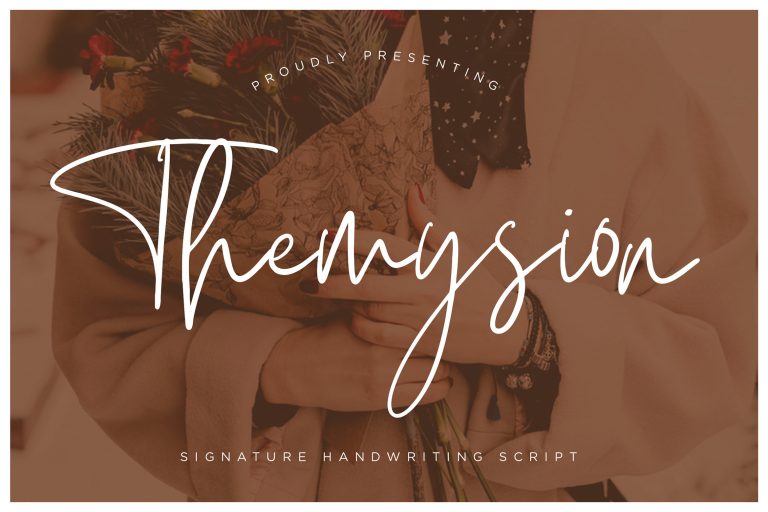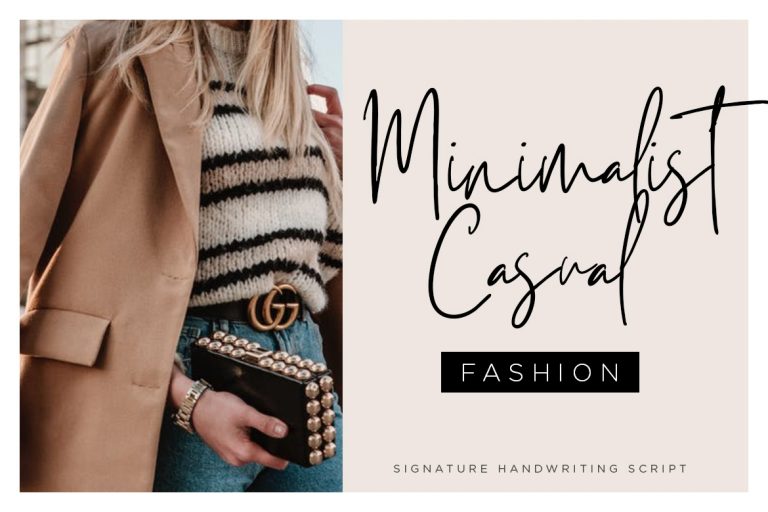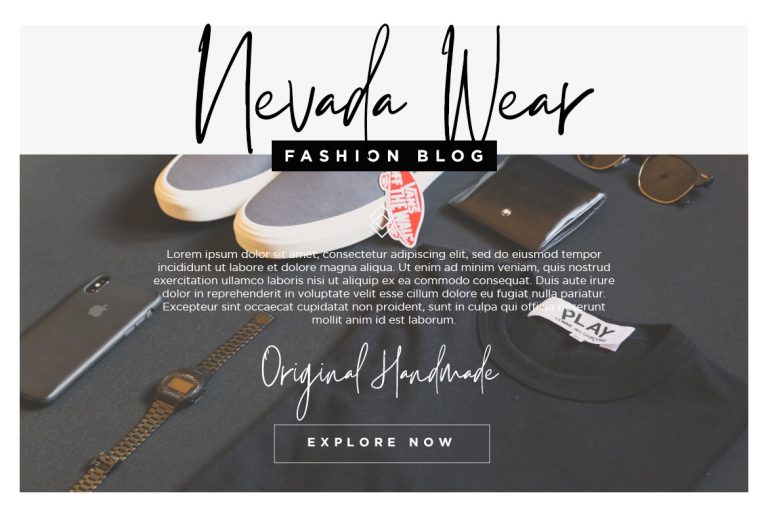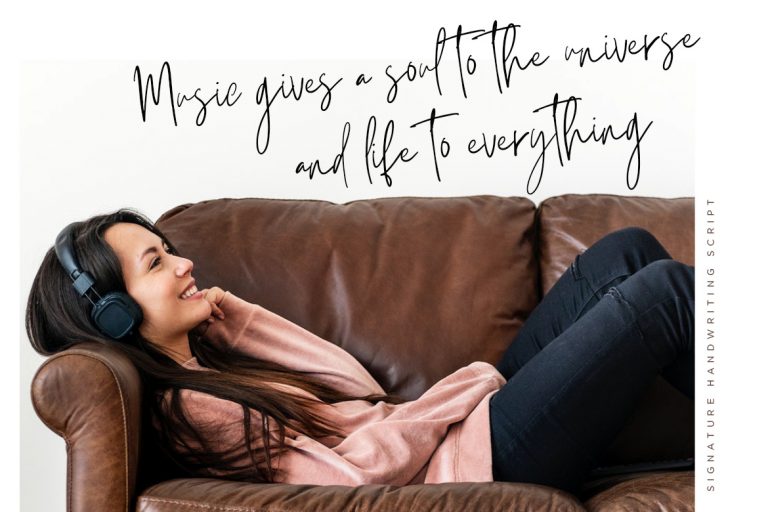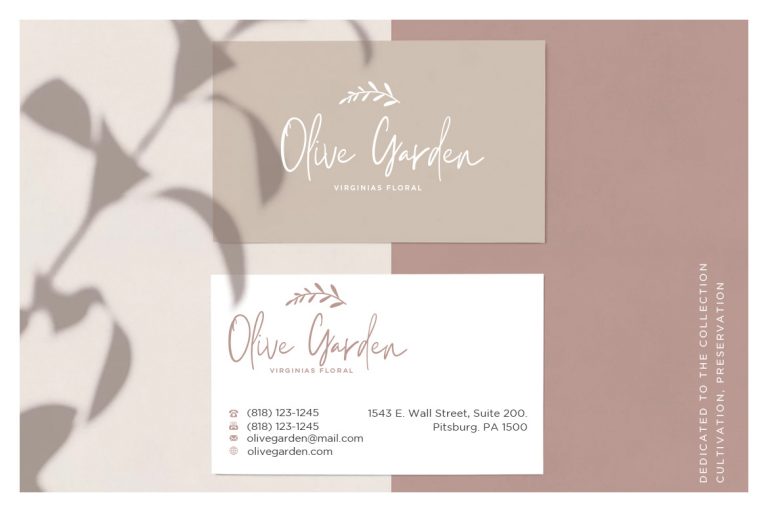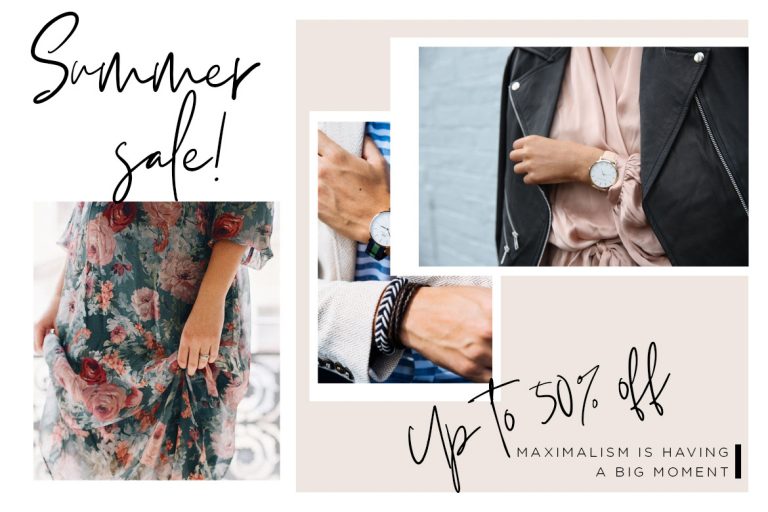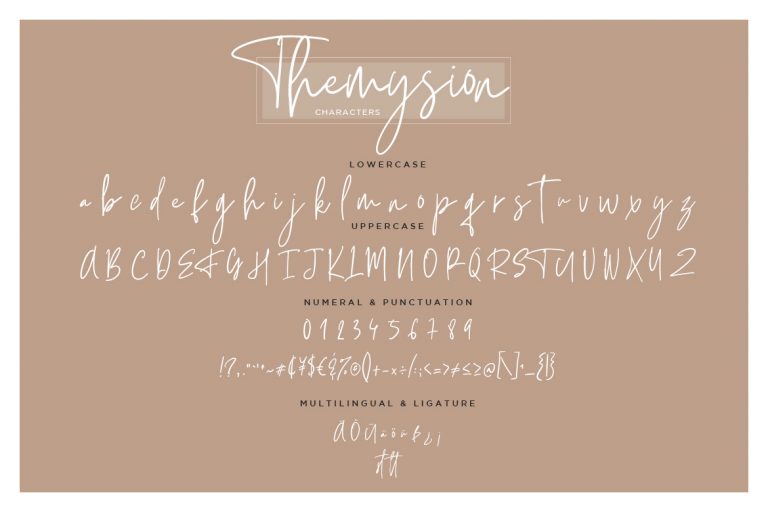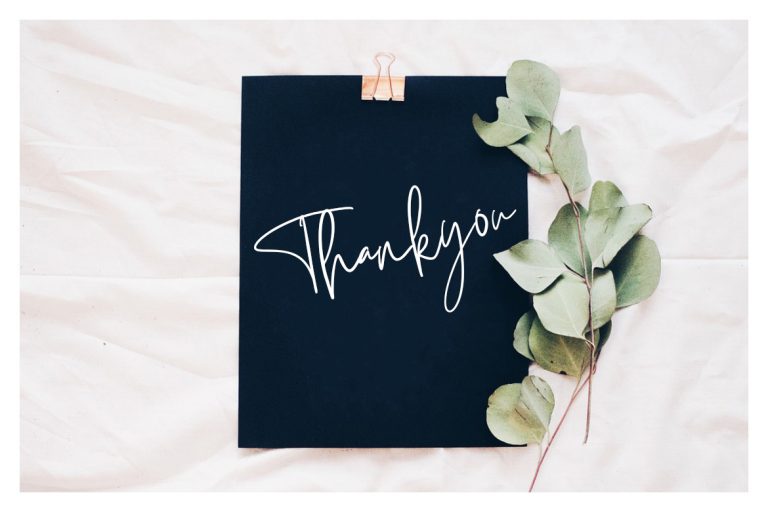
Themysion is modern signature handwriting font with elegant and classy looks for better amazing projects.
Themysion is perfect for branding projects, logo, wedding designs, social media posts, advertisements, product packaging, product designs, label, photography, watermark, invitation, stationery and any projects that need handwriting taste.
- Fonts include multilingual support for; ä ö ü Ä Ö Ü ß ¿ ¡
Themysion Signature Handwriting